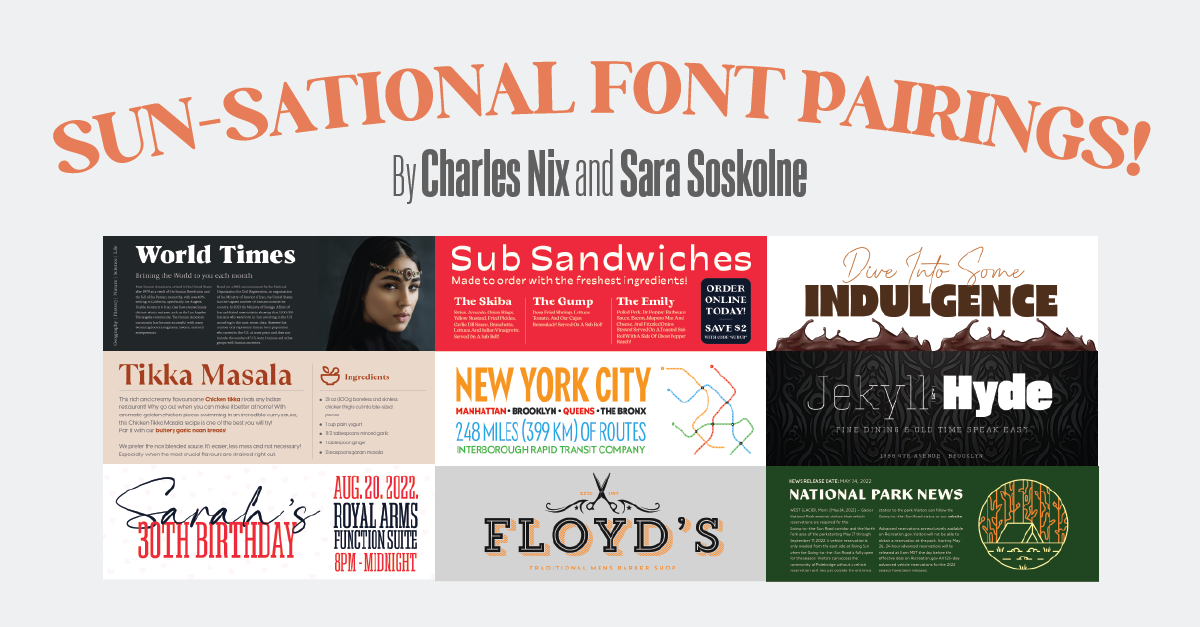
We asked Monotype Creative Type Directors Charles Nix and Sara Soskolne to choose pairings from a selection of MyFonts typefaces and families and share details about “why” each pairing works, as well as their thought process when combining type.
In the spirit of full disclosure, we should admit that we’re choosing pairings from a list of more than 100 faces/families. There’s a virtue in this in that the universe of possibilities has been limited for us. But, 100 faces/families is still a lot, and the bigger part of this pairing exercise is knowing what not to choose. Some combinations just won’t work. Sometimes finding a mate for a particular typeface is on the difficult-to-impossible side of the spectrum.
I love assignments like this. Of course, I love looking at type, but this is like the challenge of checking what’s in left in the fridge and pantry and coming up with a meal. In keeping with that metaphor, let’s start with an easy dessert.
Luthon Southard Script by Lemonthe & TT Arlen by TypeType
Vastly different:
Pairing is about contrast. A fat sans like TT Arlen and a monoline script like Luthon Southard combine to provide maximum formal contrast.
Akkordeon Slab Six by Emtype Foundry & The Billion Regular by Lemonthe
It doesn’t have to be a fat face sans and a monoline script; contrast is the key.
Manofa & Apoka by The Northern Block
The same bones:
A pairing like this works because while the typefaces’ styling are completely different (which provides the all-important contrast Charles mentioned), their underlying skeletons are similar in shape — their x-heights, open apertures, simplicity of form — and proportion. The angularity of Manofa paired with the softness of Apoka yields inline contrast at its best.
Geogrotesque Slab & Akkordeon Sans by Emtype
Seismic weight shifts:
With this pairing, most everything is different in the two choices (extreme variation in weight, serif versus sans) except that both are monolinear, and have somewhat super-elliptical curves, which gives them just enough of a familial resemblance to connect them — like cousins rather than siblings.
Quincy by Connary Fagen & Portland from Fenotype
Strange bedfellows:
Going outside the same family or same foundry approach, I aimed for a strange-bedfellows approach here, with a contemporary and eclectic pairing.
We could even look beyond pairings into triplets, quadruplets, and quintuplets, and further into 19th-century-style circus-poster typographic soups (like the “Mix-Up” style that’s popping up everywhere and that we called out in our Trends report). But those require an almost horse-whisperer kinship with type.
Ramillas by TypeType & Visby Round by Connary Fagen
Same weight, different clothes:
Here, I focused on a simpler idea: pairing fonts of two completely different styles in the same weight. The subtle stroke contrast in Ramillas adds an important dimension of difference from the monoline strokes of Visby; but alternatively, Visby could also be paired with another monoline face in the same weight with a totally different structure — like a script or a blackletter. (Aside: That ff ligature in Ramillas is :chefs kiss:)
Trend by Latinotype
Meal kits:
Along similar lines, another strategy is to find a family that provides you with a wide-ranging kit of parts that you can combine in innumerable different ways. There are so many possible versions of this lockup just from this one family: every possible combination of inline, sans, slab, and shaded versions of the same essential set of forms. This is a reliable approach, especially for the pairing beginner.
- Sara Soskolne
Luckily, a few foundries, like The Northern Block for example, are creating the typographic equivalent of a food delivery service. Their Karlo family has five weights of Sans (plus lively italics); five weights of Serif (again, plus lively italics); and two Open style fonts (Open Regular and Open Italic) – perfect for pairing.
- Charles Nix
Blacker Pro by Zetafonts
Traditional systems:
Continuing with the “meal-in-a-box” family approach, there are more traditional systems in which the usage is implied. We’re talking optical sizes – specific typefaces for specific sizes: close-up ready Display fonts; workhorse Text fonts; and rugged Micro fonts. There are a couple of those in our list, like Blacker Pro from Zeta Fonts.
Klik by Fenotype
Push and pull:
We’ve not paid much attention to the width axis, so let’s make up for that in this digestif menu. It uses just a small portion of the vast Klik family from Fenotype, taking advantage of both weight and width contrast, resulting in a nice push-pull combination.